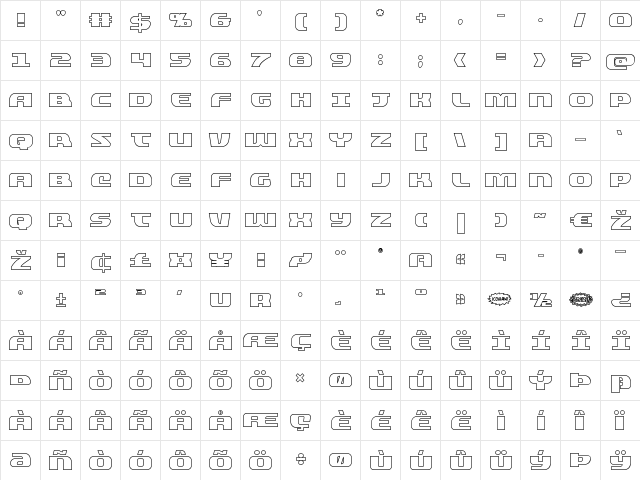
Quickening Outline Regular
Design Context for Quickening Outline Typeface
Quickening Outline brings ornamental detail and strong personality to headlines and identities, where visual impact matters more than quiet functionality.
Font Pairing: Pair with a clean neutral sans-serif for body copy to let Quickening Outline's character lead without overwhelming the composition.
Pro Tip: Treat Quickening Outline as the centrepiece of your typographic hierarchy. One strong heading set in a decorative face can carry an entire layout.